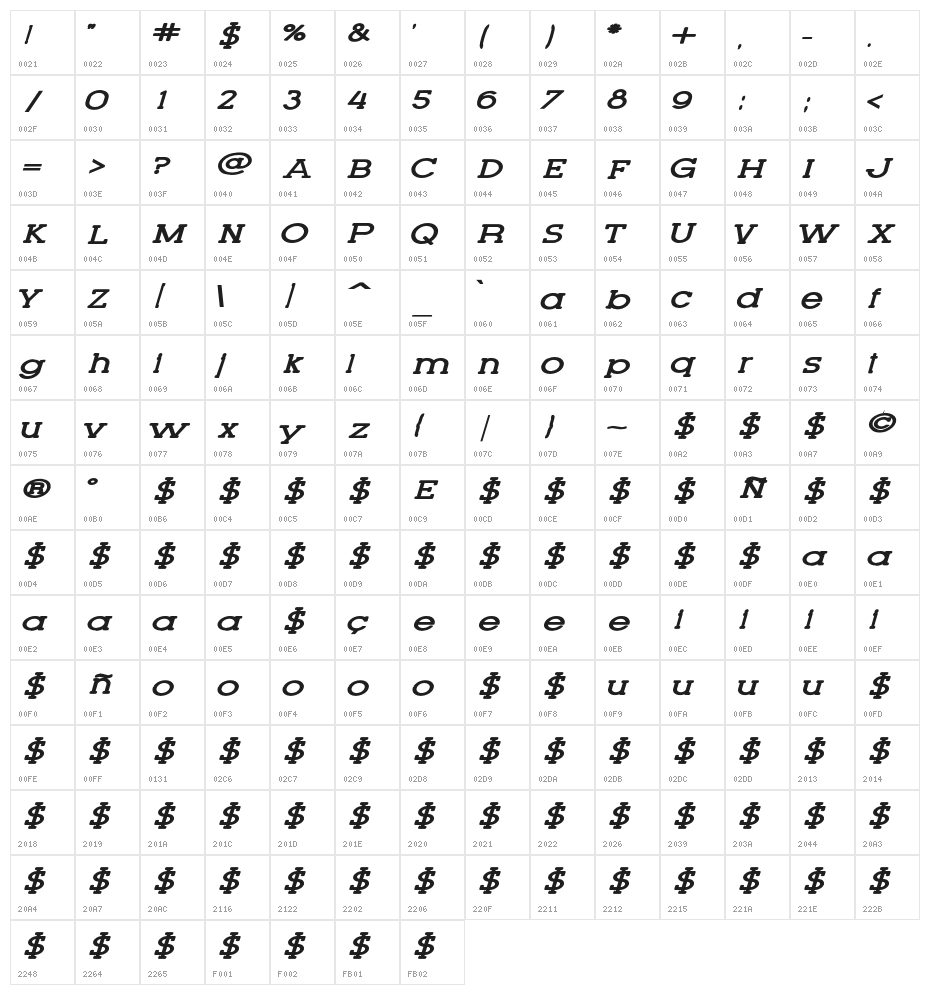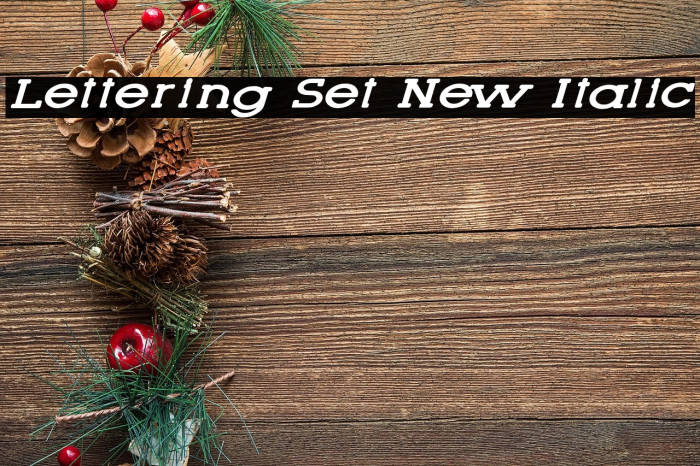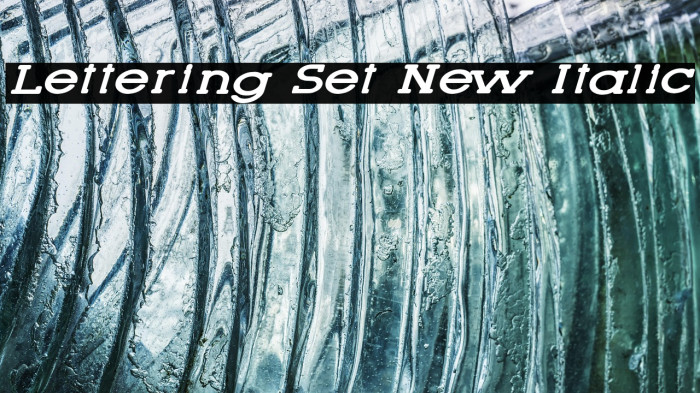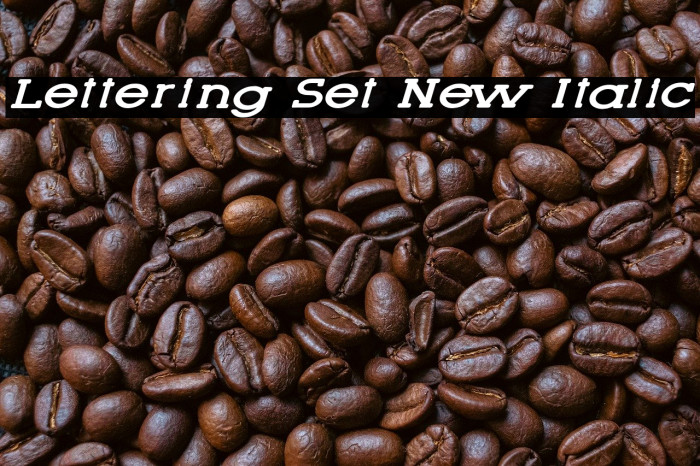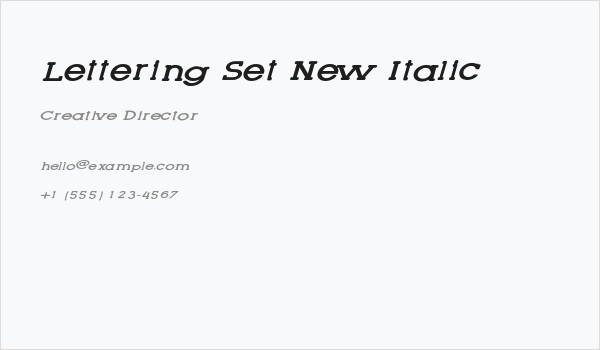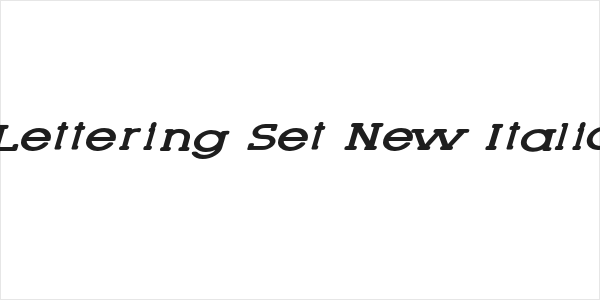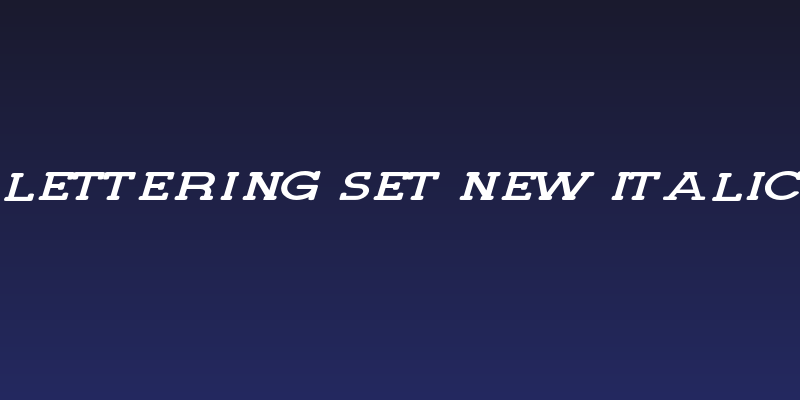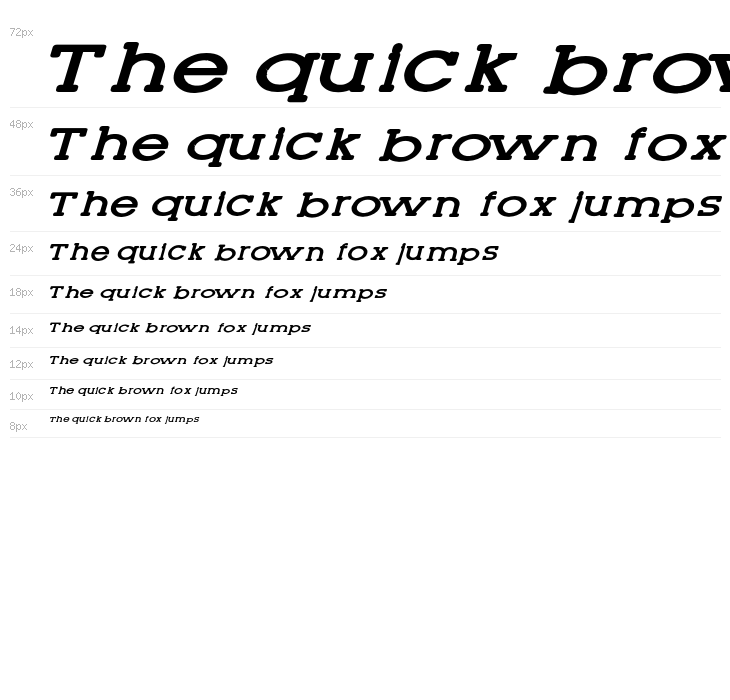
Lettering Set New Italic Font
Lettering Set New Italic Description
This font features a distinct italic style with a smooth, flowing appearance. The characters are slightly slanted to the right, giving a sense of motion and elegance. The uppercase letters are bold and prominent, while the lowercase letters maintain a consistent style with a slight curve. The numbers are clear and legible, matching the overall aesthetic. Special characters are well-integrated, maintaining the italicized theme. The font's design is both modern and classic, making it versatile for various uses.
| Use Case | Headlines, Logos, Editorial design |
| Proposed Projects | Ideal for use in branding, advertising, and editorial design where a touch of elegance is desired. |